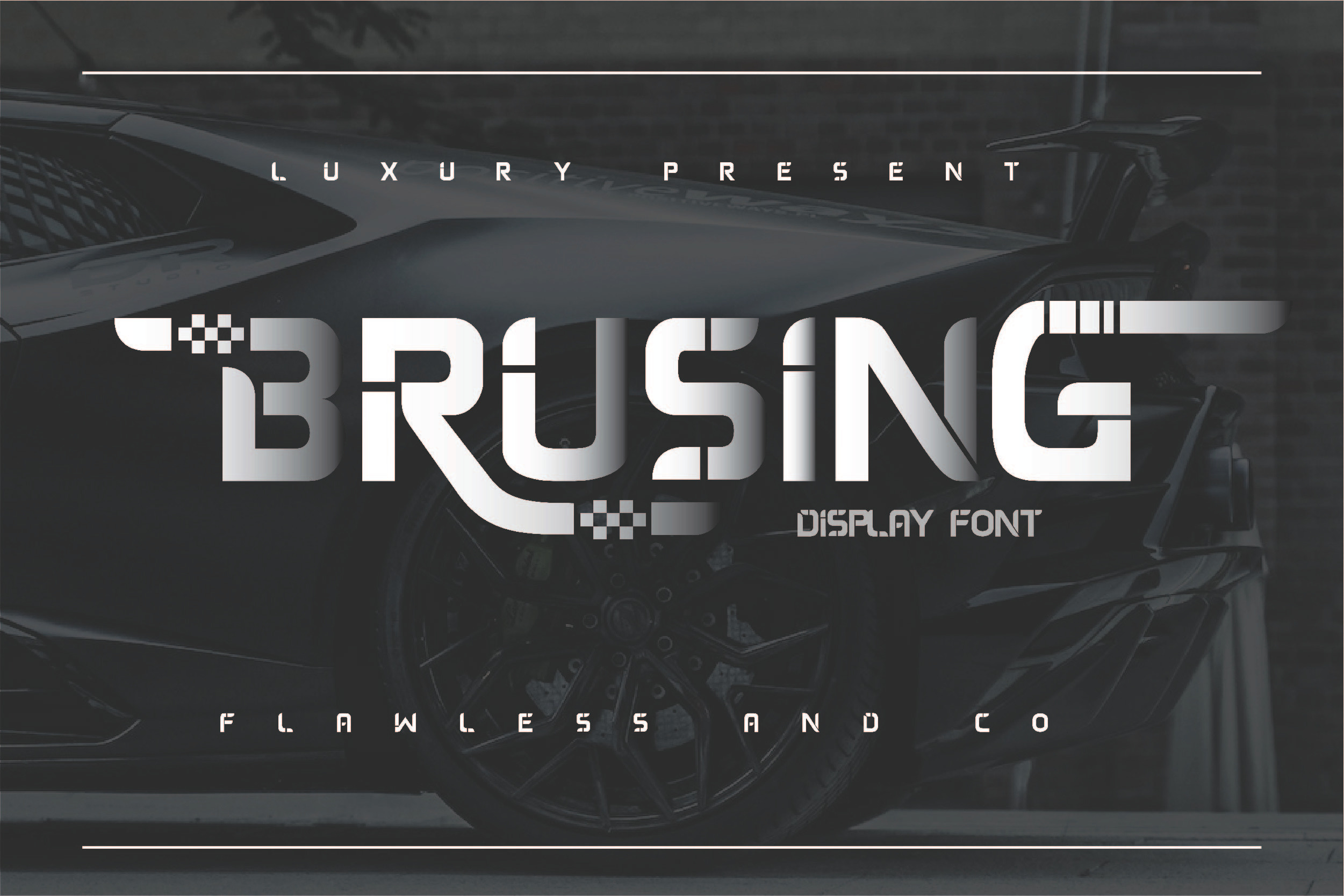
Brusing - Sports Display Font
Brusing is a bold display font tailor-made for the world of sports. Its impactful uppercase letterforms are perfect for creating attention-grabbing designs on jerseys, banners, and posters. With a dynamic and athletic feel, Brusing adds a powerful touch to sports branding and promotional materials. Ideal for various sports-related projects, this font is your go-to choice for making a strong visual statement.